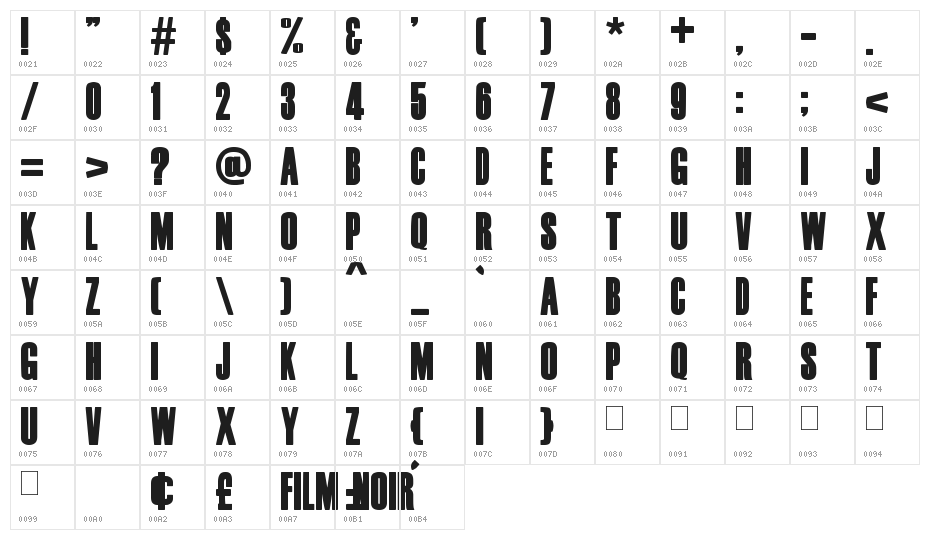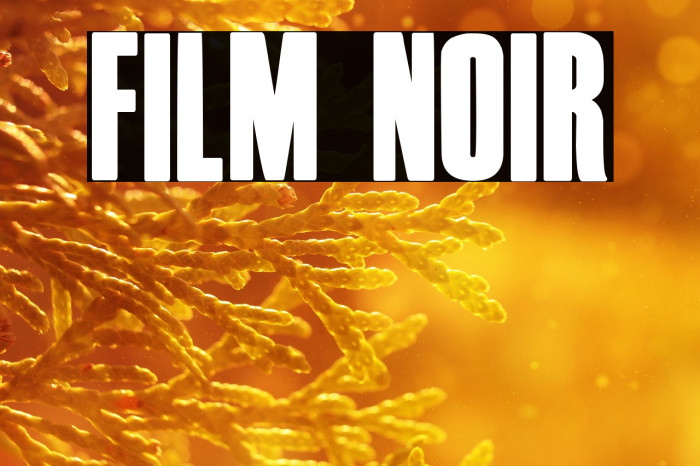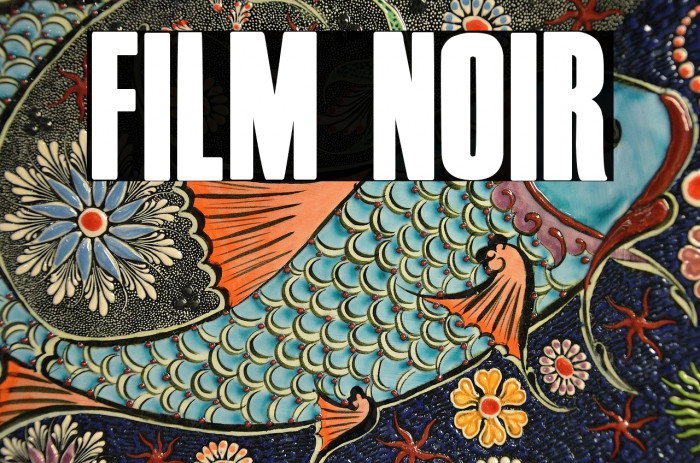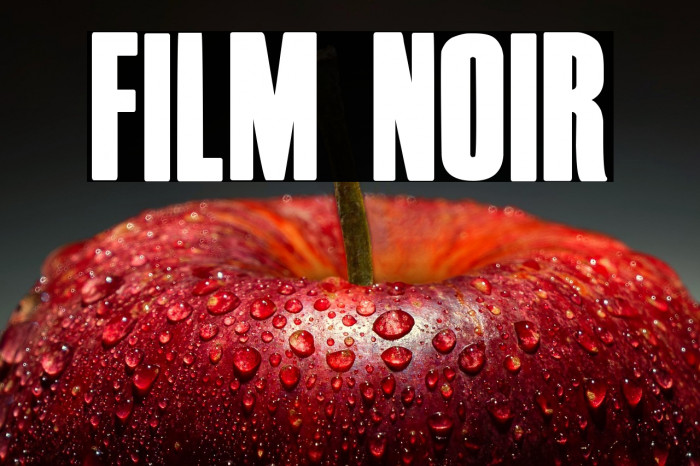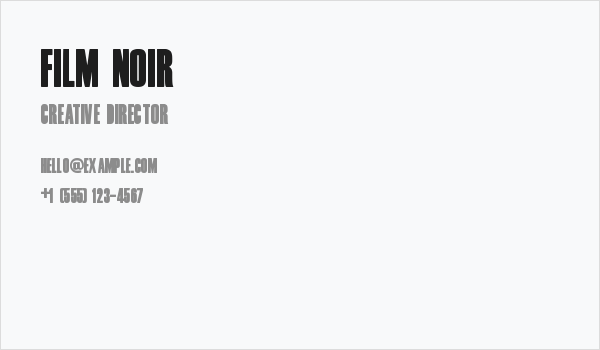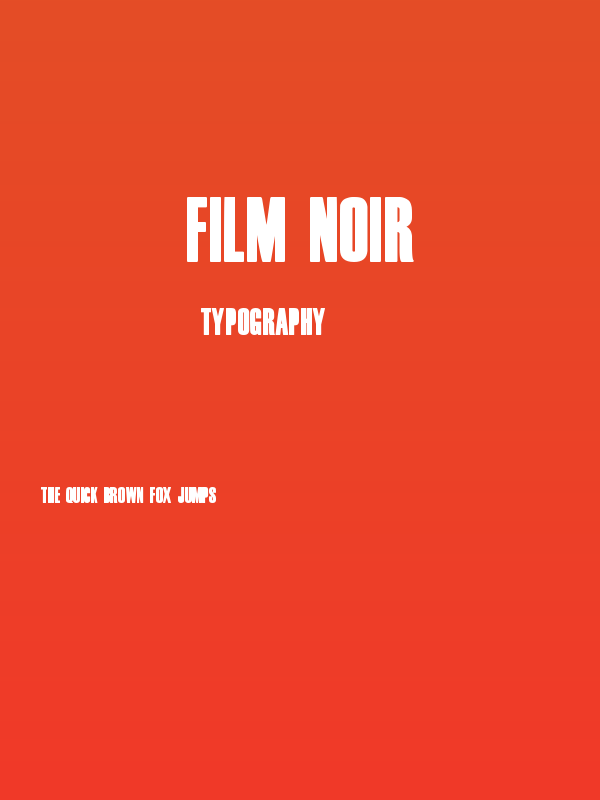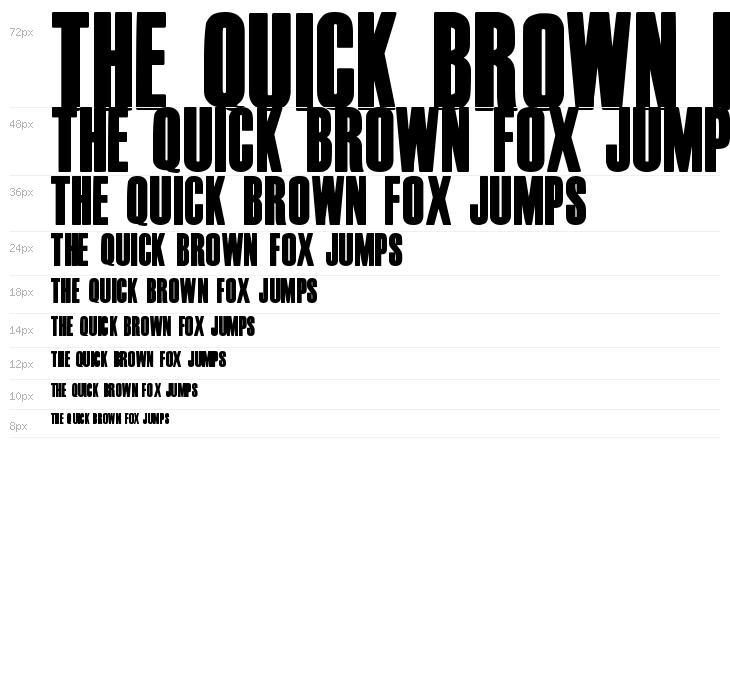
Film Noir Font
Film Noir Description
This font is a bold and striking typeface characterized by its thick, block-like letters. The uppercase and lowercase letters maintain a consistent width, creating a uniform and powerful visual impact. The numbers and special characters follow the same bold style, ensuring a cohesive look across all text elements. The font's design is reminiscent of vintage film noir posters, with a modern twist that makes it suitable for contemporary use. Its strong presence and high legibility make it ideal for headlines and titles, where it can command attention and convey a sense of drama and intensity.